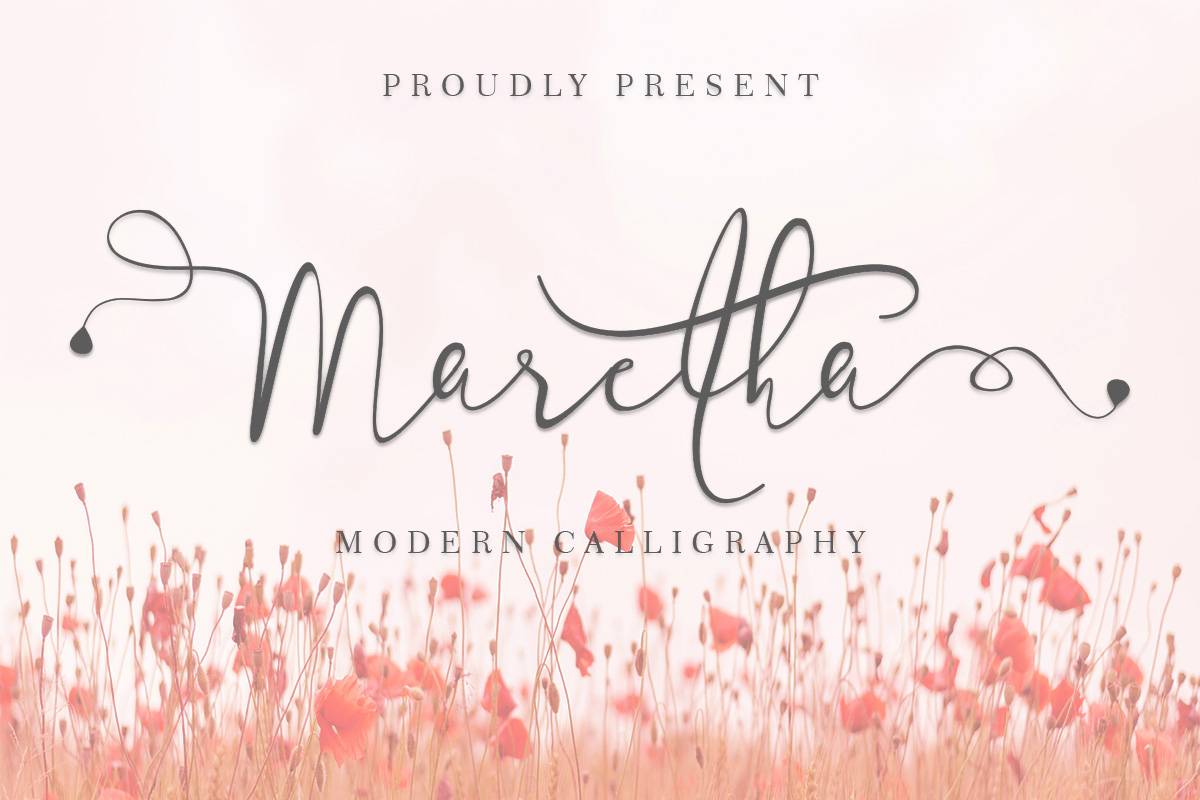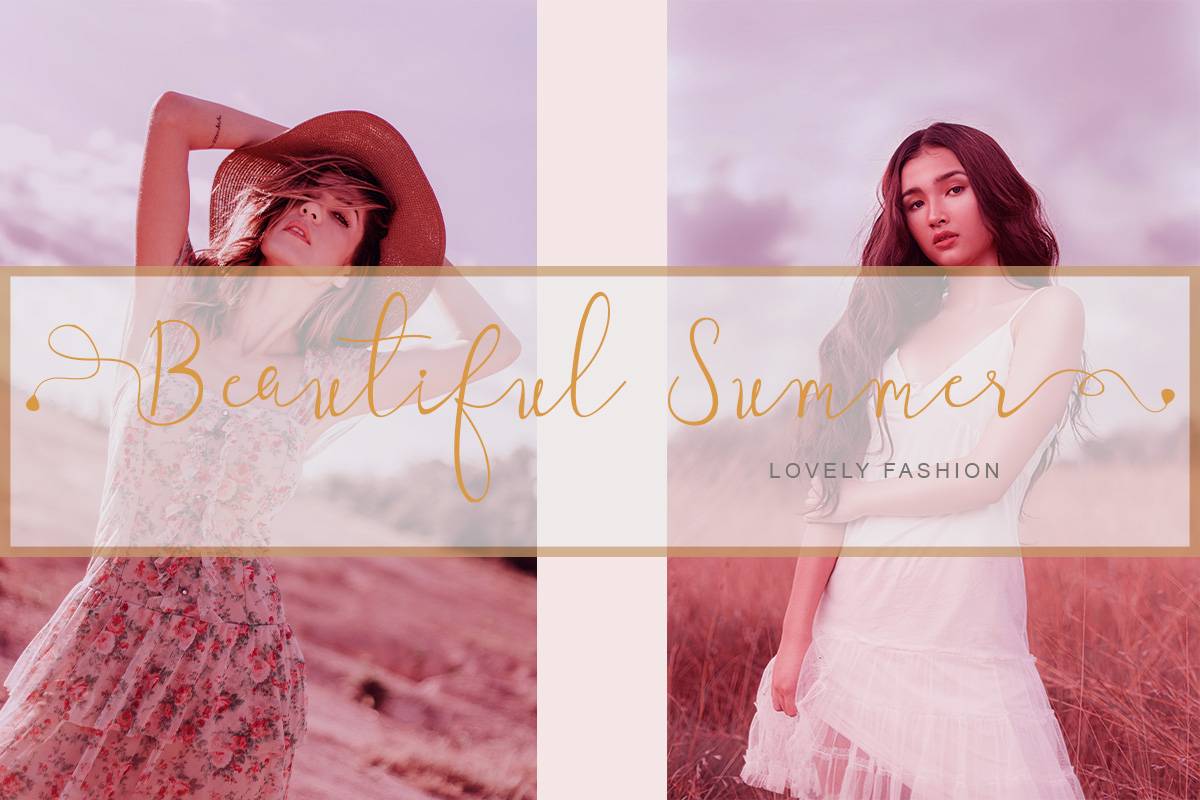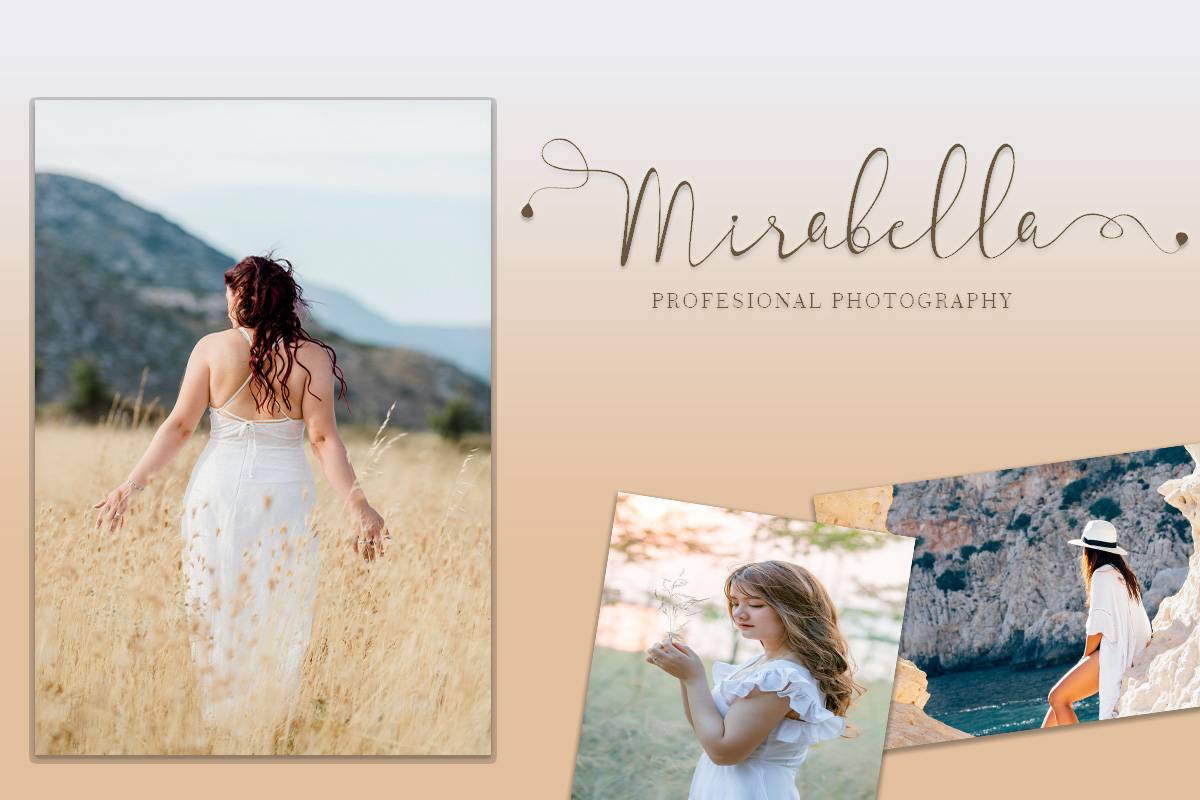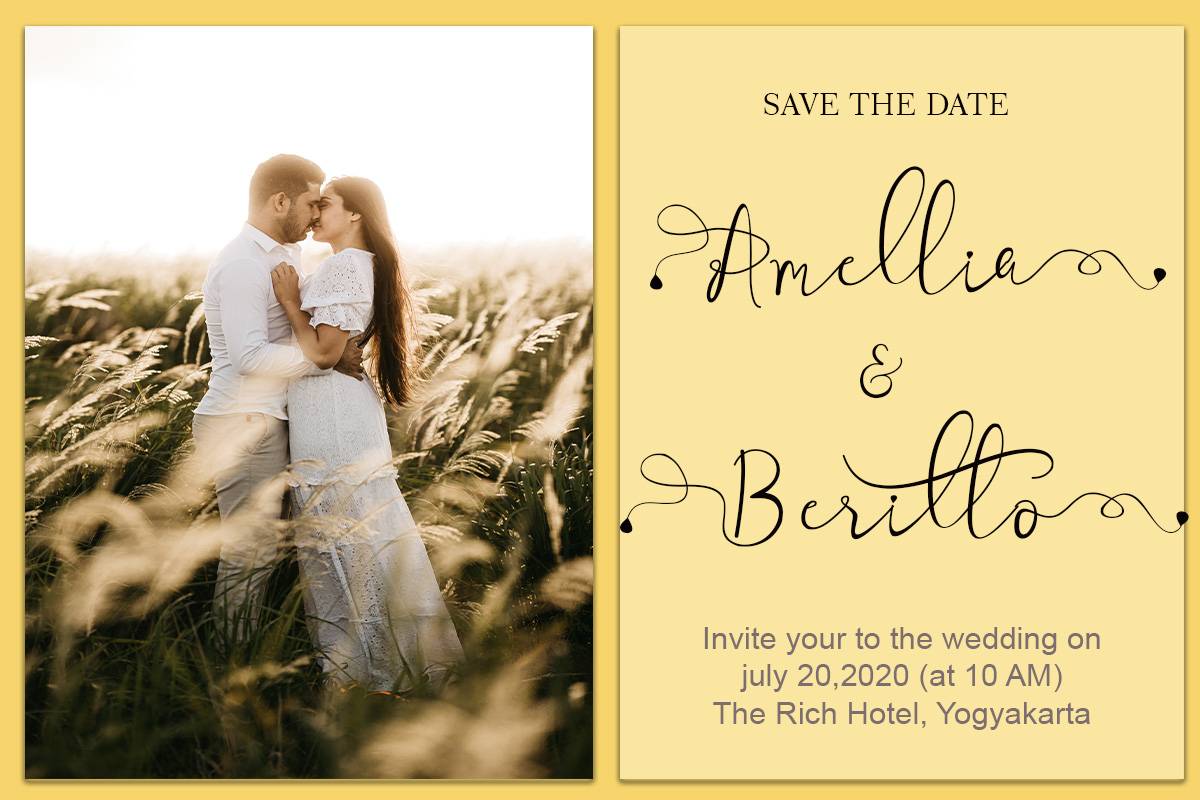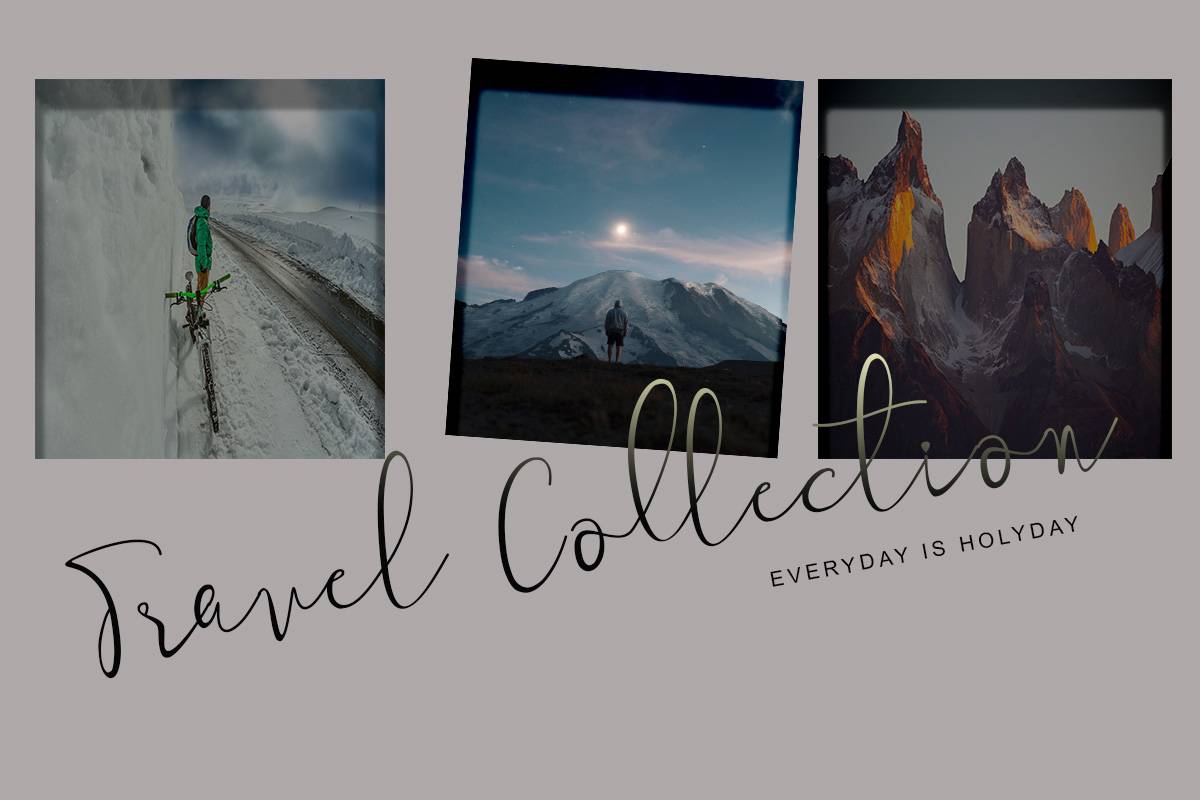
Maretha Font is a delicate and elegant handwritten script with slender, flowing strokes that convey a sense of grace and sophistication. Its tall, airy letterforms with subtle loops and flourishes make it perfect for invitations, branding, and other creative projects that require a personal and stylish touch. This font works beautifully in designs seeking a refined, feminine, and modern feel.
Maretha Font
About Maretha Font
| Font family | Maretha Font |
| Designer | Yogaletter 2020 (Isroni Yoga Prasetya) |